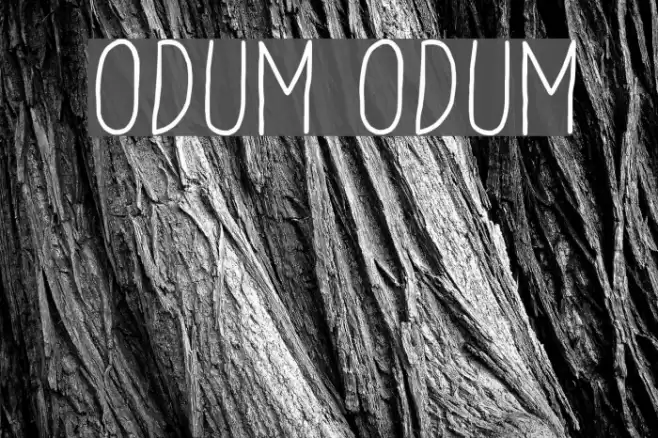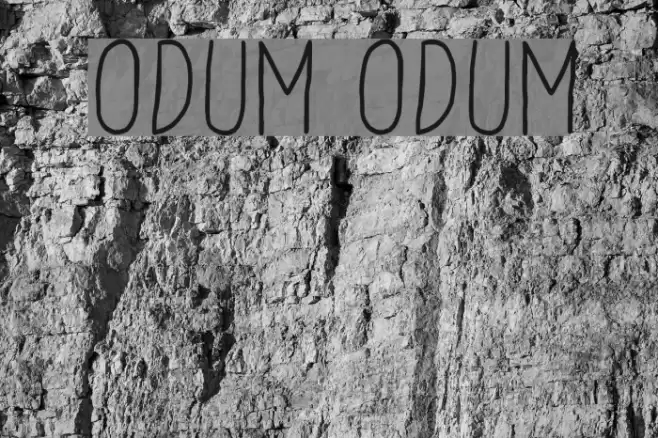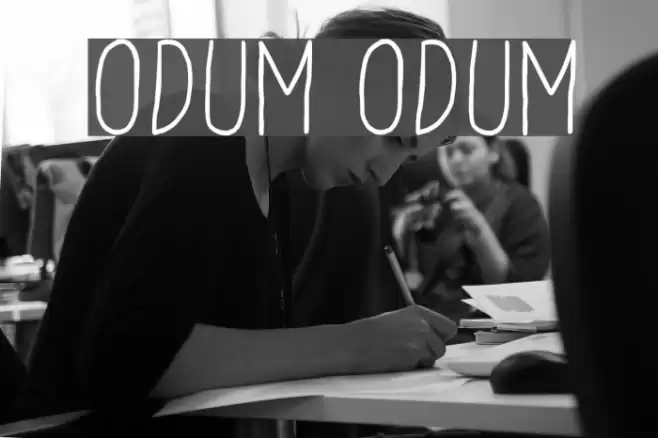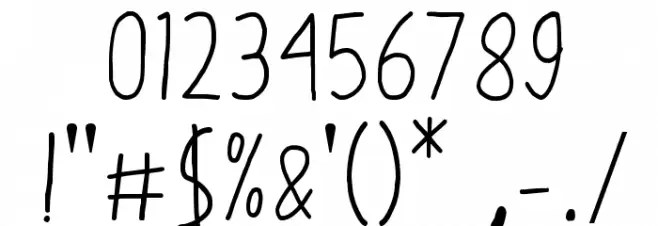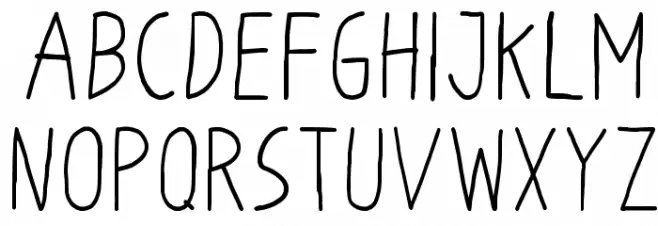
Odum Odum Font
Odum Odum Description
This font features a playful and casual handwritten style, characterized by its irregular strokes and slightly uneven baseline. The letters are tall and narrow, giving it a unique and quirky appearance. The uppercase and lowercase letters maintain a consistent style, with a slight slant that adds to its informal charm. The numerals and special characters follow the same design, ensuring a cohesive look across all text. This font is perfect for projects that require a personal touch, such as greeting cards, invitations, or creative branding.
A playful, handwritten font with tall, narrow letters and a casual style from Handwritten fonts.
- Proposed Projects: Ideal for greeting cards, invitations, creative branding, and personal projects.
- Width: Condensed
- Overall Style: Casual
- Use Case: Headlines, Informal text, Creative projects